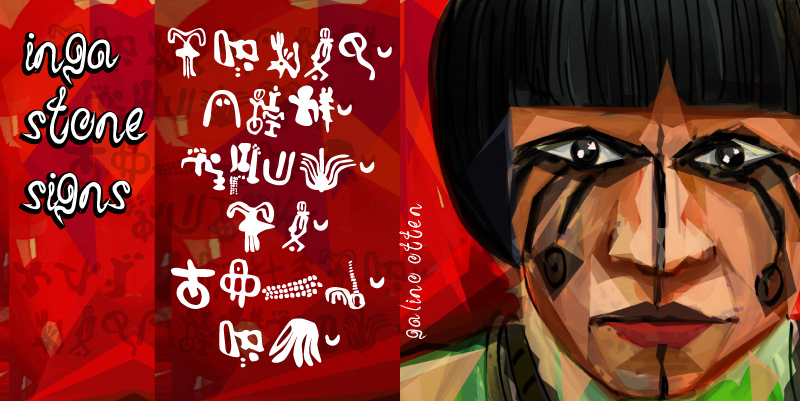
Inga Stone Signs by Galdino Otten is a free ancient-inspired dingbat font built from rough pictographic symbols. Its blunt, uneven forms resemble marks cut or painted onto stone, with human, animal, and abstract motifs reduced to compact silhouettes.
Archaeology, folklore, and early civilizations are natural subjects for museum graphics, educational publishing, and historical games. The symbols can also become part of map illustrations or artifact-themed packaging, where they function as images rather than ordinary lettering.
These icons were designed based on those symbols entrenched in low relief by pre-Columbian inhabitants in a huge stone in the city of Inga, state of Paraíba, Brazil.